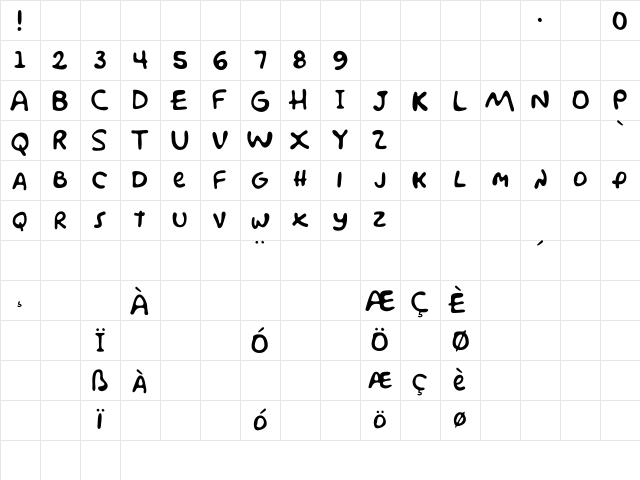
Simpsonfont Regular
Design Context for Simpsonfont
Simpsonfont is a composed and adaptable typeface that performs quietly and consistently across a wide range of design contexts.